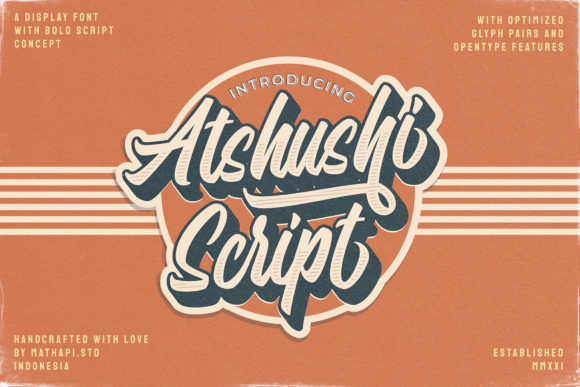
The Designer’s Delight: Atshushi Script Font
Atshushi Script is a gorgeous and bold handwritten font, crafted to give your headlines and logotype projects a stylish touch. This font reads as strong, confident, and dynamic and can add tons of nostalgic character to your designs.
• ✨ Unique Character: Atshushi Script has a distinct personality that sets it apart from other script fonts.
• ✅ Legibility: Despite being a script font, Atshushi Script is surprisingly legible, even at smaller sizes.
• 💥 Versatility: This font can be used for a wide range of projects, from branding and advertising to packaging and signage.
• 🎨 Customization: With its extensive range of OpenType features, glyphs, and stylistic alternates, you can customize Atshushi Script to fit your design needs.
• 🤔 Limited Suitability for Body Text: While Atshushi Script is great for headlines and titles, it may not be the best choice for body text due to its bold and decorative nature.
• ⚠️ Kerning Issues: As with any font, you may encounter kerning issues when using Atshushi Script. Make sure to adjust the kerning manually to achieve optimal results.
The Story Behind Atshushi Script
Atshushi Script was designed by a talented type designer who drew inspiration from traditional Japanese calligraphy and modern street art. The font’s unique character and bold personality make it perfect for designers looking to add a touch of nostalgia and style to their projects.
Q: What is the best way to use Atshushi Script for branding projects?
A: Atshushi Script is perfect for branding projects that require a bold, confident look. Use it for logos, headlines, and titles to add a touch of nostalgia and style to your brand.
Q: Can I use Atshushi Script for body text?
A: While Atshushi Script is legible, it’s not the best choice for body text due to its bold and decorative nature. Use it for headlines and titles, and a more traditional font for body text.
Q: Is Atshushi Script suitable for digital use?
A: Yes, Atshushi Script is suitable for digital use. Its clear and legible design makes it perfect for use on websites, social media, and other digital platforms.
Q: Can I customize Atshushi Script?
A: Yes, Atshushi Script has a range of OpenType features, glyphs, and stylistic alternates that allow you to customize the font to fit your design needs.